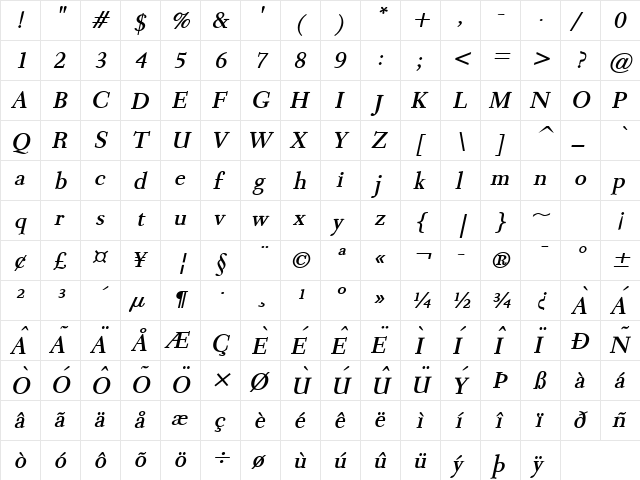
Transit BoldItalic
Design Context for Transit Typeface
Transit takes a measured approach to typography — its balanced proportions and neutral character make it a reliable workhorse for both digital and print work. The slanted form adds forward momentum and visual energy. Its bold stroke weight gives it real presence on the page.
Pro Tip: Try Transit for annotation and caption copy alongside an upright companion — the contrast in angle creates a dynamic but ordered typographic system.